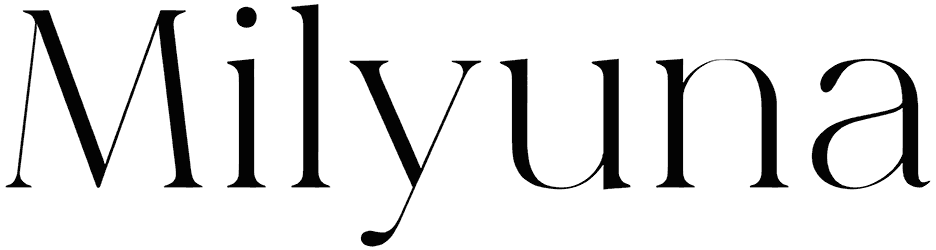
Milyuna Font
For your next fashion event, design a chic invitation flyer and adorn its words with this elegant font to capture a lot of attention. The letters of this serif font have a chic and classic vibe that can perfectly reflect…
For your next fashion event, design a chic invitation flyer and adorn its words with this elegant font to capture a lot of attention. The letters of this serif font have a chic and classic vibe that can perfectly reflect your unique taste. Apply the Milyuna font to your intended project and surprise your followers.